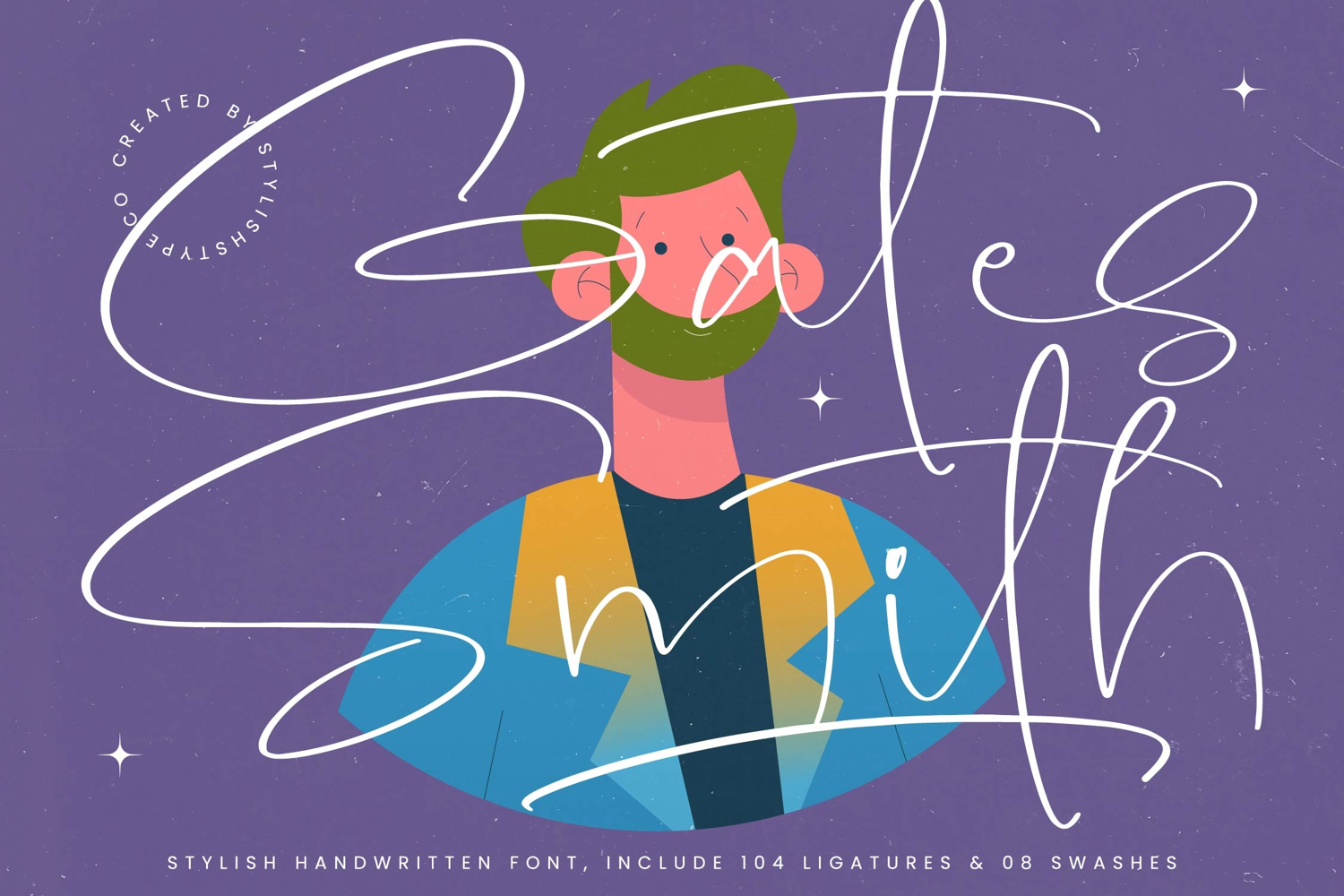
Gates Smith - Stylish Handwritten Font
Gates Smith
Gates Smith Italic
Experience the artistry of custom lettering through Gates Smith - Stylish Handwritten Font and its impressive array of 104 expressive ligatures. These meticulously crafted characters, paired with 08 elegant swashes, allow for dynamic movement and a truly unique appearance in every layout. By bridging the gap between digital precision and a natural human touch, this typeface offers unparalleled creative flexibility for designers seeking a bespoke look.
Break down geographic barriers and communicate with a global audience using a tool built for the modern world. With its extensive multilingual support, Gates Smith - Stylish Handwritten Font adapts seamlessly across global markets, making it incredibly versatile for international projects. Whether you are launching a campaign in Europe or expanding your reach into new territories, its consistent legibility and refined charm provide a cohesive brand voice worldwide.
Transform your brand identity with a typeface designed for premium visual storytelling and high-impact presentation. This versatile handwritten font is perfect for luxury branding, premium packaging, editorial design, and wedding invitations where a touch of exclusivity is required. Gates Smith - Stylish Handwritten Font is also an ideal choice for social media graphics and sophisticated visual identity projects that demand a chic, handwritten appeal.